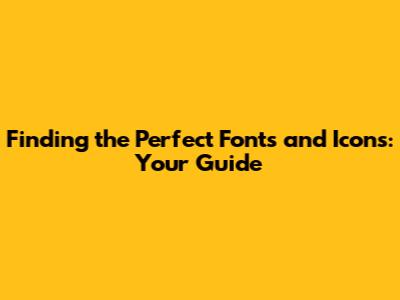
- Headlines and Titles: Script fonts can be fantastic for grabbing attention in headlines or titles, especially if you want to create a sense of sophistication or creativity. They can make your content stand out and add a unique flair.
- Invitations and Cards: For invitations, greeting cards, or any design that needs a personal touch, script fonts are a great choice. They evoke a feeling of warmth and intimacy.
- Logos and Branding: If your brand has a more artistic or handmade feel, a script font in your logo can be a perfect fit. It helps create a memorable and distinctive brand identity.
- Limited Body Text: While script fonts are visually appealing, they can be difficult to read in large blocks of text. Stick to using them sparingly, mainly for headlines, short phrases, or emphasis.
- Calligraphic: These fonts are inspired by traditional calligraphy and often feature elegant, flowing strokes. They're perfect for formal occasions and sophisticated designs.
- Brush Script: These fonts mimic the look of a brushstroke, adding a touch of informality and artistic flair. They're great for a more casual and modern aesthetic.
- Handwritten: These fonts try to capture the feel of actual handwriting, which can range from neat and tidy to more messy and playful. They're excellent for a personal touch.
- dafont: This is a popular and user-friendly website with a massive collection of fonts, including a great selection of script fonts. You can easily browse by category, style, and popularity.
- Other Font Websites: There are other font resources out there, such as Google Fonts (which is free and offers a great selection of web fonts), Font Squirrel, and Creative Market. These sites offer a variety of free and premium fonts.
- Icon Websites: For icons, websites like Flaticon, Iconfinder, and The Noun Project are excellent resources. These platforms usually have a large library of icons in different styles, and many offer both free and paid options.
- Use Keywords: When searching for fonts, use descriptive keywords like "script," "handwritten," "modern," or "vintage." For icons, you can search for terms related to your content.
- Preview and Test: Before you download a font, always preview it with your text to see how it looks. Also, check the font's character set to make sure it includes all the symbols you need.
Hey everyone! Are you ready to dive into the awesome world of fonts and icons? Finding the right ones can seriously level up your designs, whether you're working on a website, a presentation, or even just sprucing up your social media. It's like choosing the perfect outfit – it needs to match the vibe! This guide is all about helping you navigate the exciting landscape of fonts, especially script fonts, and icons, with a special shout-out to sites like dafont and the often-searched-for "oscnewsc" and other similar icon packs, to ensure you can find the ideal aesthetic.
The Importance of Fonts and Icons
Okay, so why are fonts and icons such a big deal, anyway? Well, fonts are the voice of your design. They communicate the tone and personality of your brand or project. A clean, sans-serif font might say "professional" and "modern," while a playful, handwritten font can give off a more casual and friendly vibe. Icons, on the other hand, are the visual shortcuts that help people quickly understand information. Think about the little shopping cart icon on an e-commerce site – you instantly know what it means! Using the right fonts and icons creates a cohesive visual language that's easy for people to understand and enjoy. Plus, they can make your content more engaging and visually appealing, which is always a win.
First of all, let’s talk about fonts. When selecting a font, always consider the project's purpose and your target audience. A bold and modern font will be a perfect choice for tech startups, whereas a classic serif font is the best option for financial institutions. If you are creating materials for children, then you may prefer a playful and easy-to-read font. Don't forget that font pairing is equally as important as the font selection. You may opt to select 2 or 3 font styles to make your design more readable and visually appealing. Remember that the design must be coherent and legible. So, before finalizing your font selection, always review your design and check how the fonts work together. Remember to test your fonts across different sizes and platforms to ensure they display consistently. Furthermore, understanding font licenses is super important. Always make sure you have the proper licenses for the fonts you plan to use, especially if you're using them commercially. This will protect you from potential legal issues down the road.
Now, about icons. Choosing the right icons can drastically improve your user experience and make your website or app more intuitive. Icons help in conveying information quickly and efficiently, making it easier for users to navigate and understand your content. When selecting icons, consider your target audience and the overall design of your project. The style of the icons should match your brand's aesthetic. You may choose between different styles such as outlines, filled icons, or flat designs. Also, always ensure the icons are easily recognizable and understandable. Users should instantly know what an icon represents. Consistency is a key when you are using icons, so it is important to stick to a consistent style. Make sure all your icons use the same design language. Lastly, always optimize your icons for different screen sizes. Icons that look great on a desktop may appear pixelated on mobile devices. You may consider using scalable vector graphics (SVG) to ensure your icons look crisp and clear regardless of the screen size.
Exploring Script Fonts and When to Use Them
Alright, let's get into the fun stuff: script fonts! These are the fonts that mimic handwriting, and they can add a touch of elegance, personality, or even playfulness to your designs. Script fonts come in all sorts of styles, from formal calligraphy to more casual brushstrokes. But when should you use them?